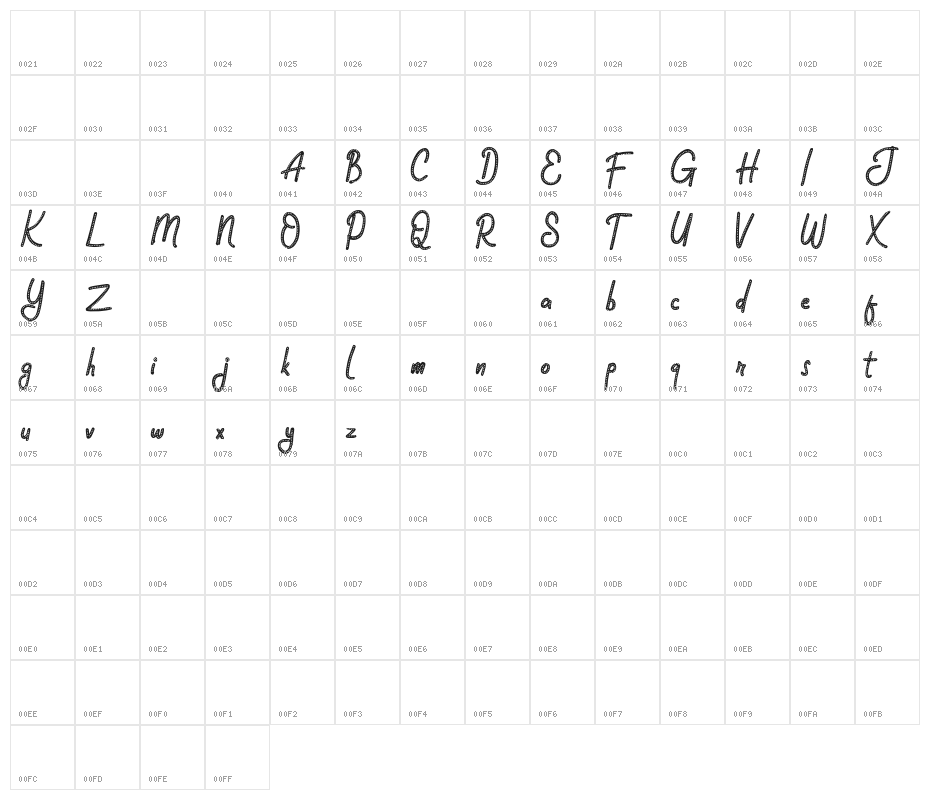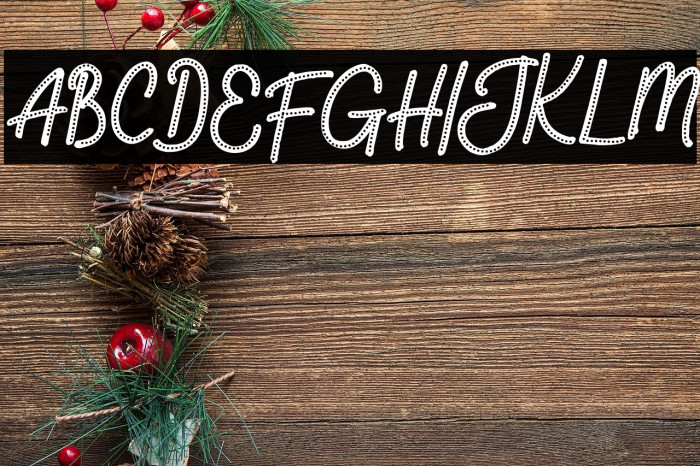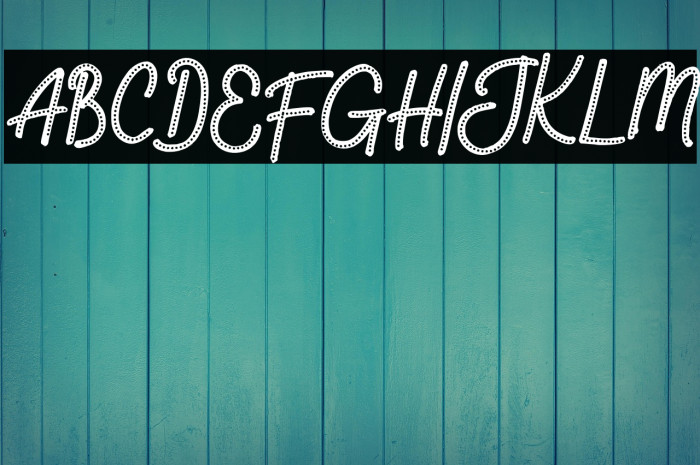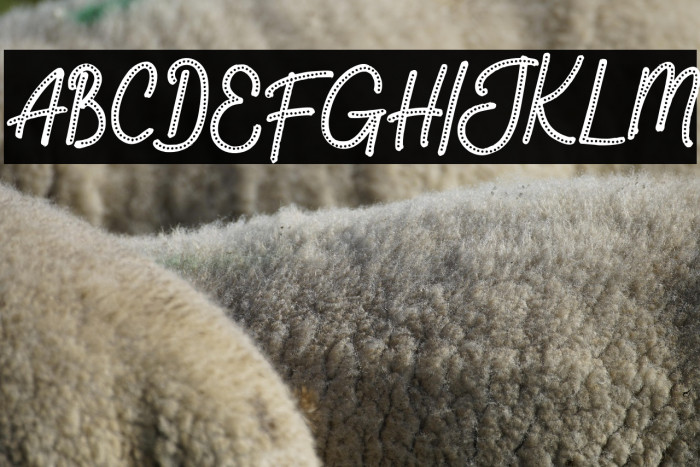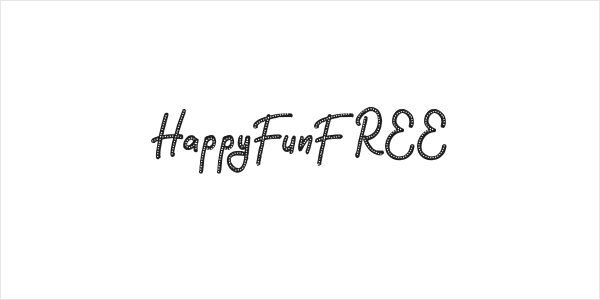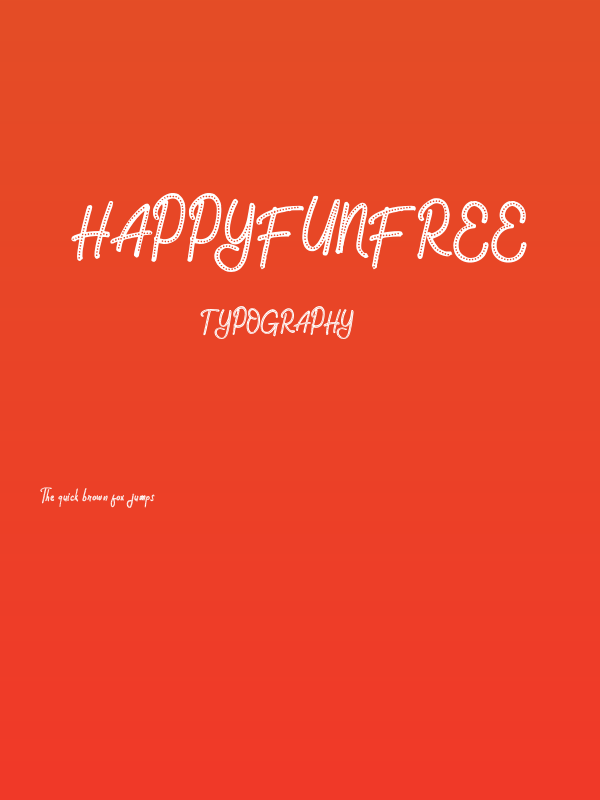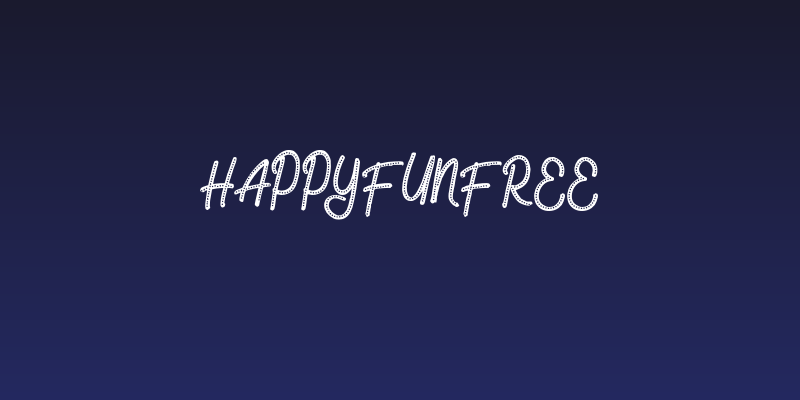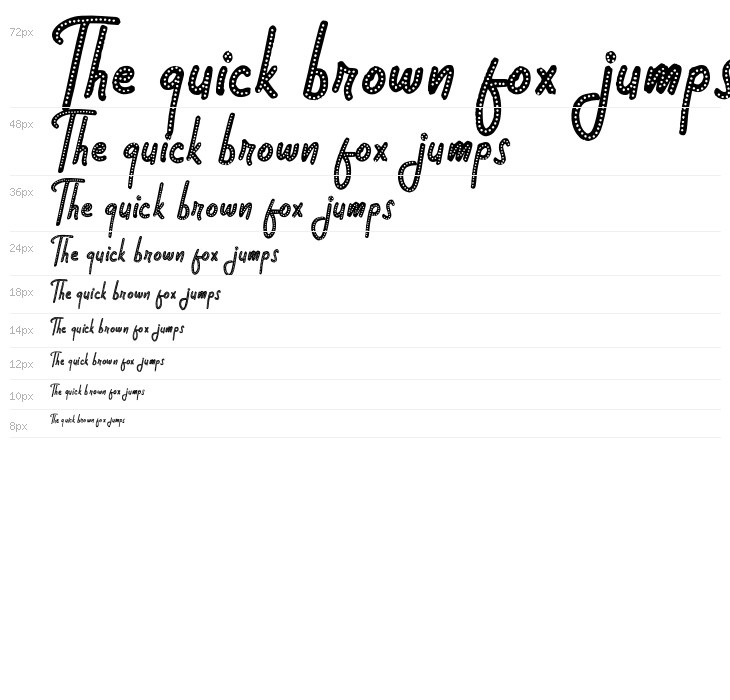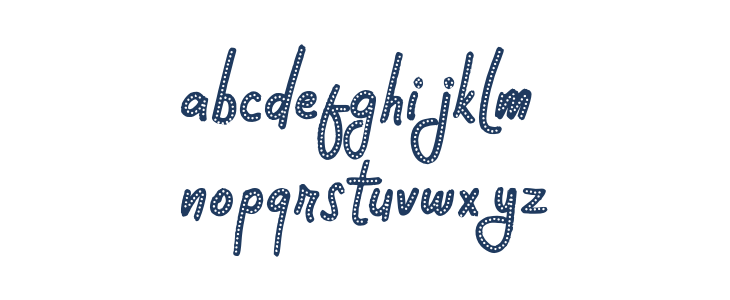
HappyFunFREE Font
HappyFunFREE Description
This playful and whimsical font features a dotted outline style that adds a sense of fun and creativity. The characters are crafted with a casual, handwritten feel, giving it a lively and informal appearance. The uppercase letters are bold and prominent, while the lowercase letters maintain a consistent style with a slightly more relaxed form. The numbers and special characters follow the same playful design, making it versatile for various creative projects. The font's unique dotted pattern adds texture and visual interest, making it stand out in any design.
| Overall Style | Playful, Whimsical |
| Use Case | Headlines, Logos, Creative Projects |
| Proposed Projects | Ideal for children's books, playful invitations, greeting cards, and creative branding projects. |